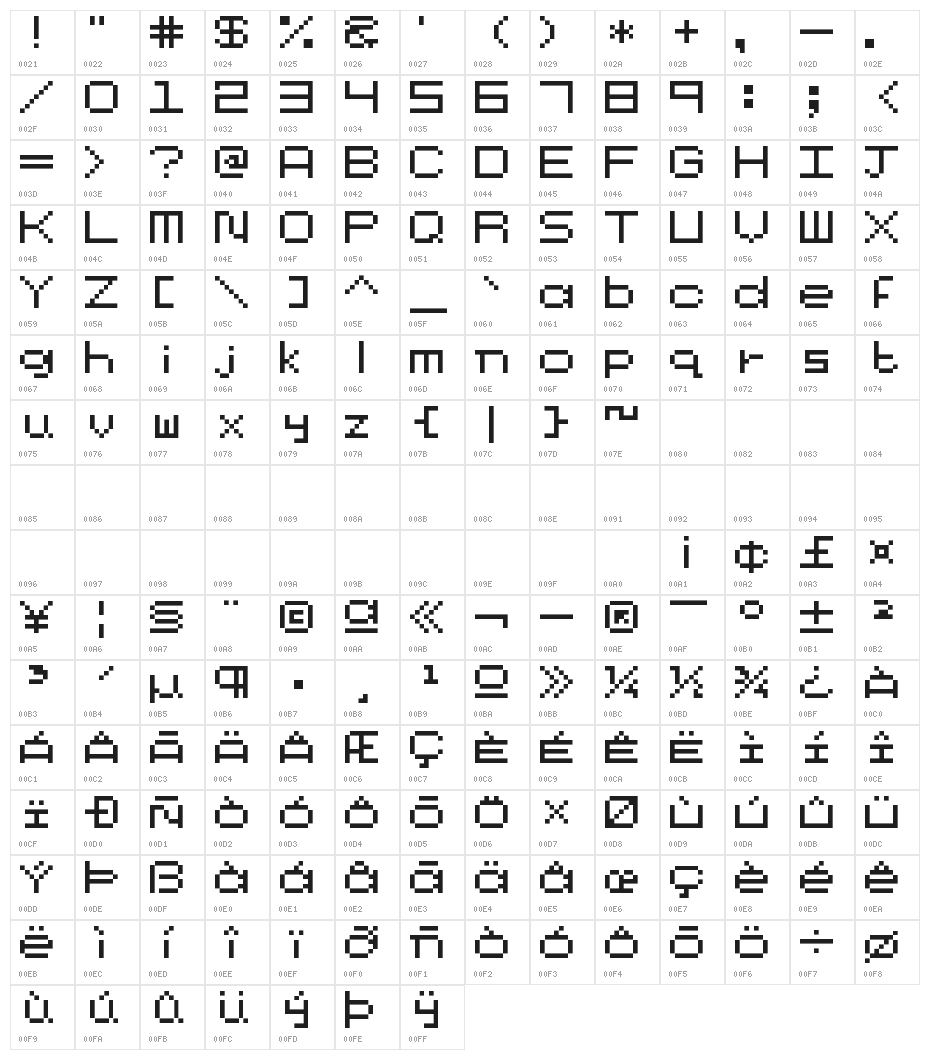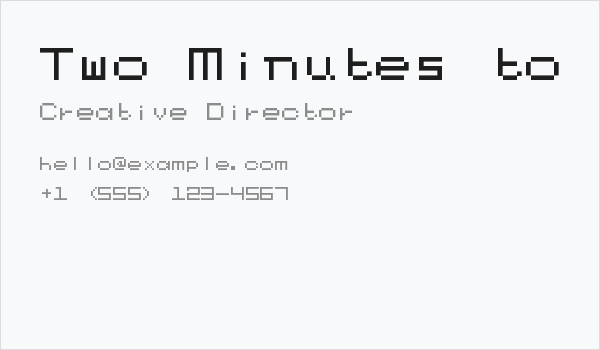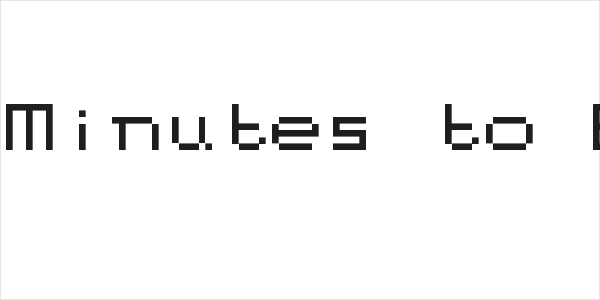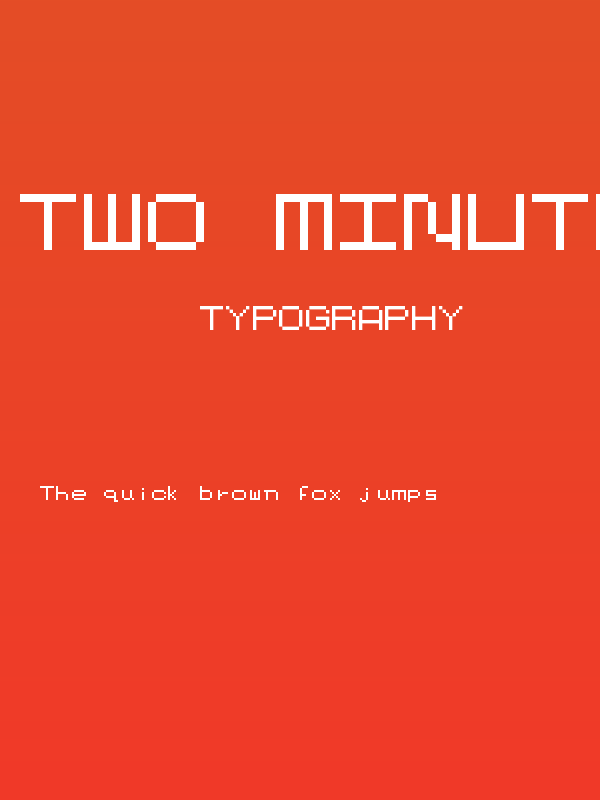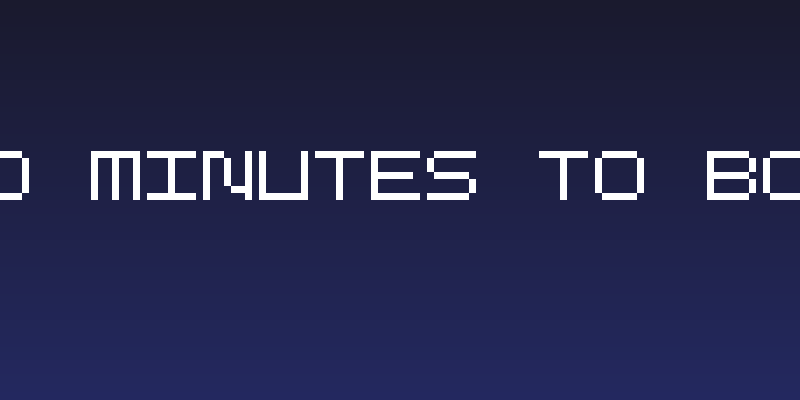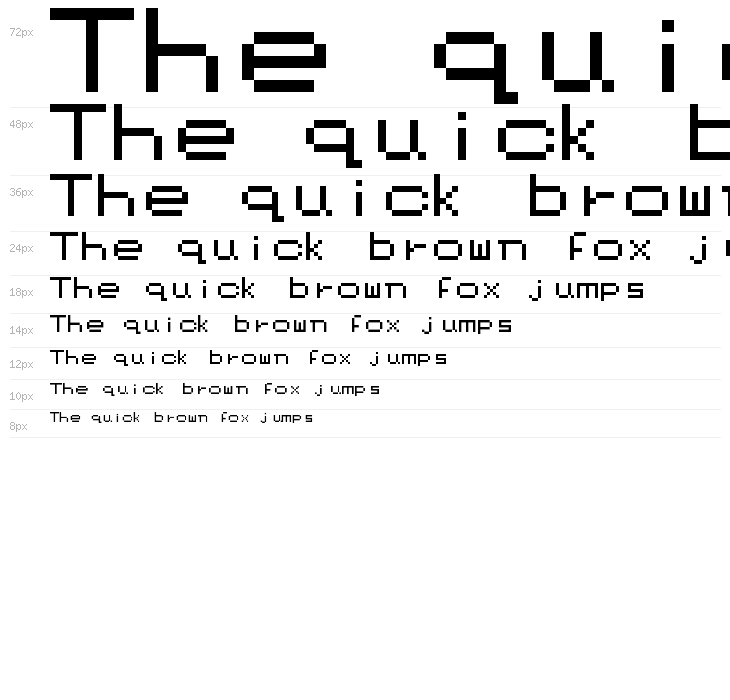
Two Minutes to Boot Font
Two Minutes to Boot Description
This font features a pixelated, blocky design reminiscent of early digital displays and retro video games. Each character is constructed with a grid-like precision, giving it a distinctly digital and technical appearance. The uppercase and lowercase letters maintain a consistent height, enhancing readability while preserving the nostalgic aesthetic. The numerals and special characters are designed with the same pixelated style, ensuring uniformity across all glyphs. This font's geometric structure and uniform stroke width make it ideal for projects that aim to evoke a sense of nostalgia or a retro-futuristic vibe.
| Overall Style | Retro, Digital |
| Use Case | Headlines, Logos, Digital displays |
| Proposed Projects | Ideal for retro video game graphics, digital art projects, tech-themed posters, and any design requiring a nostalgic digital aesthetic. |